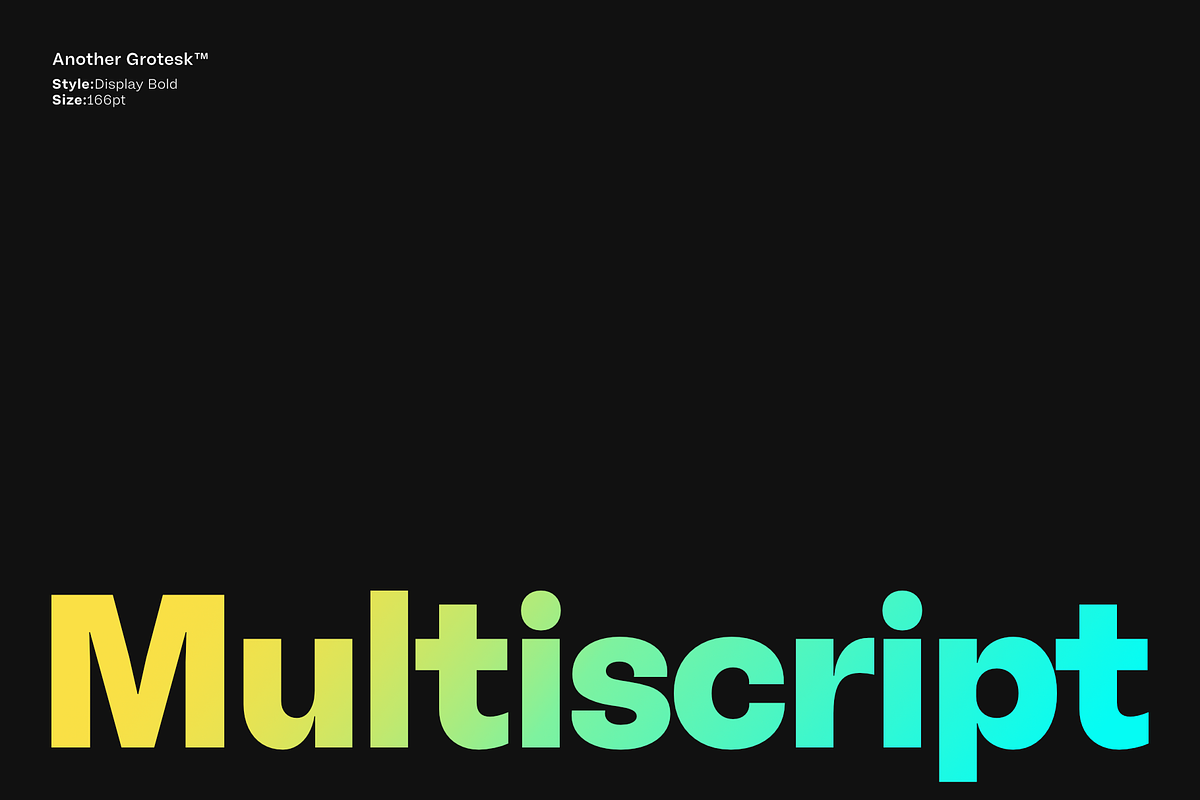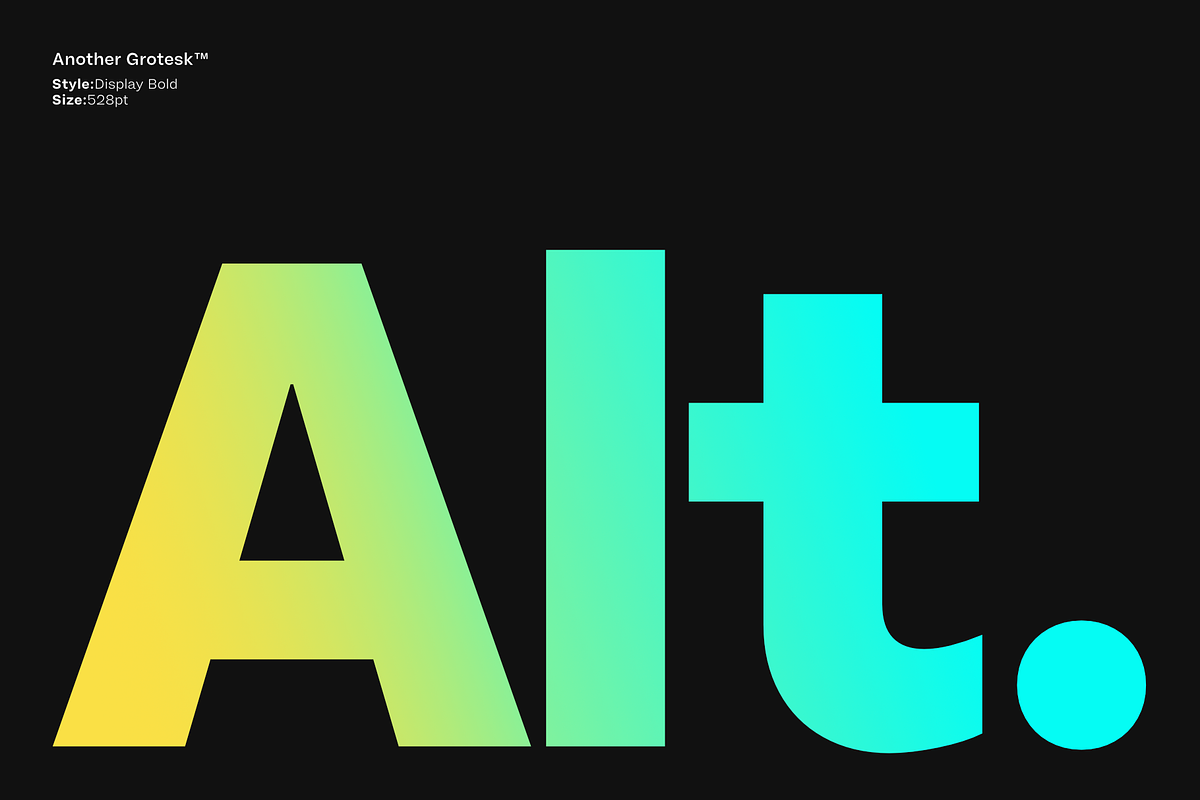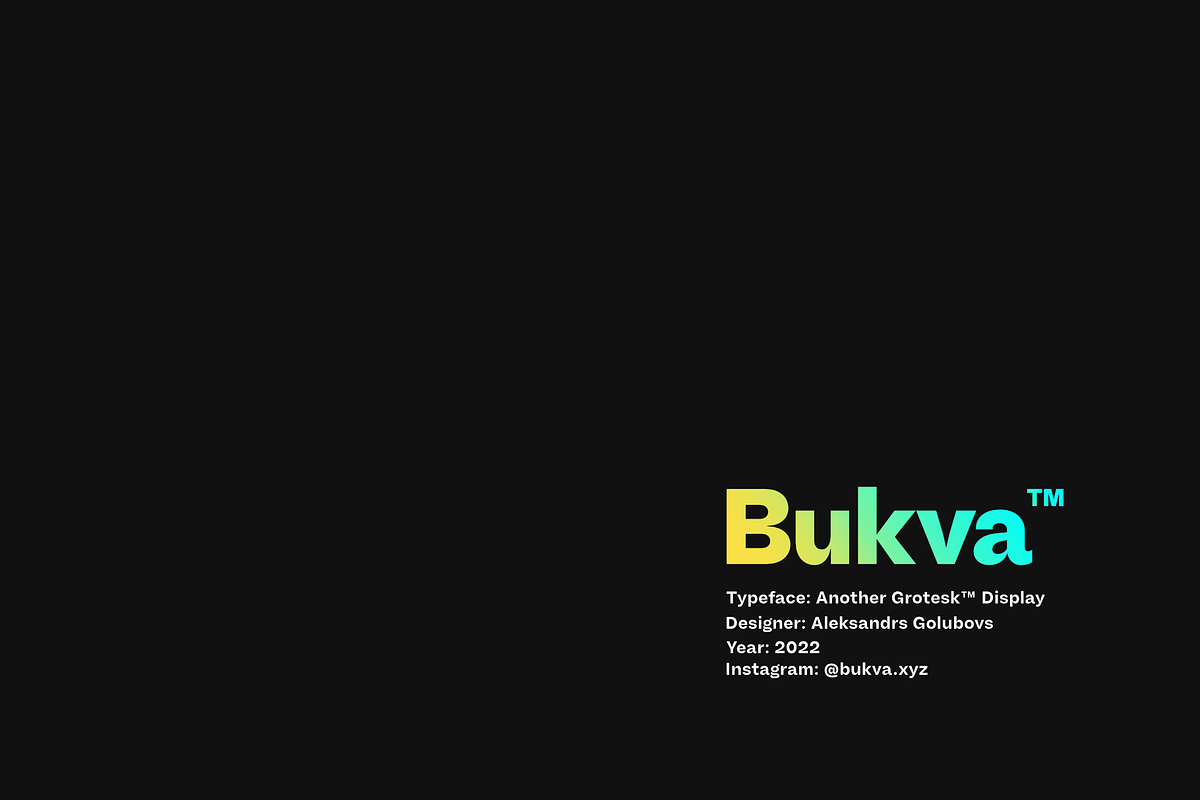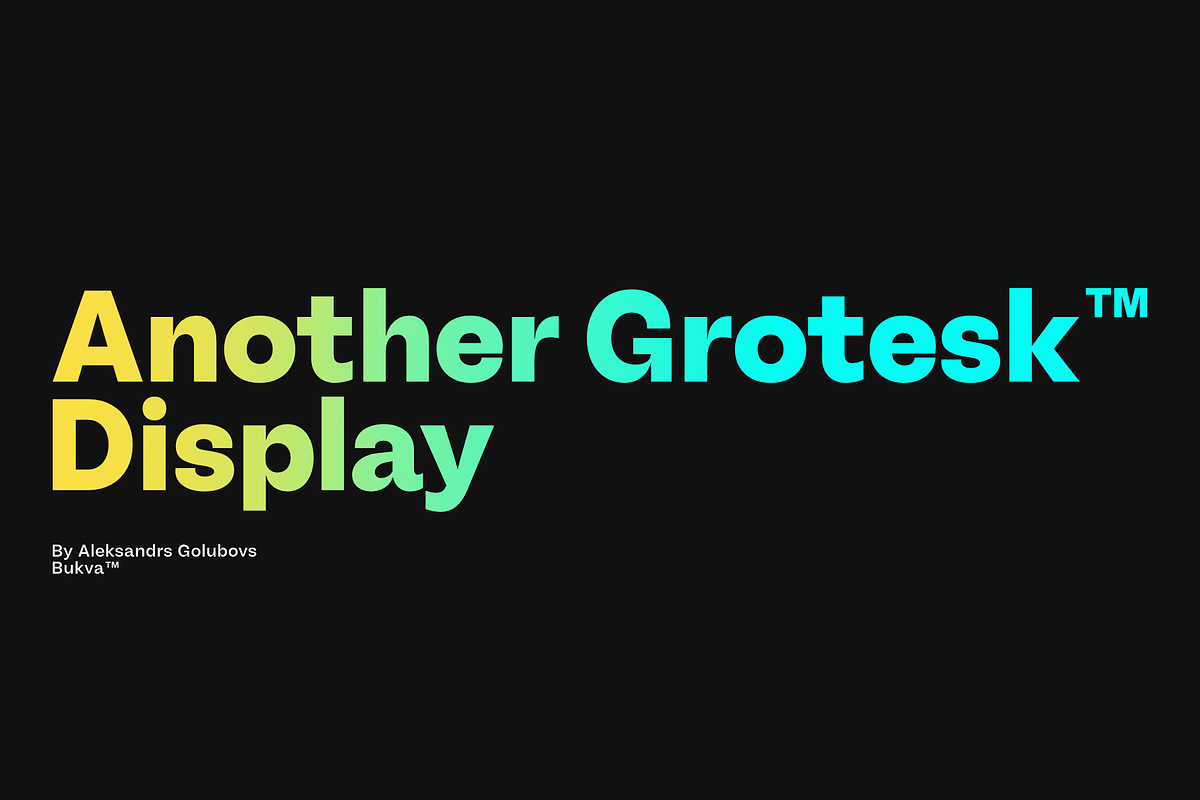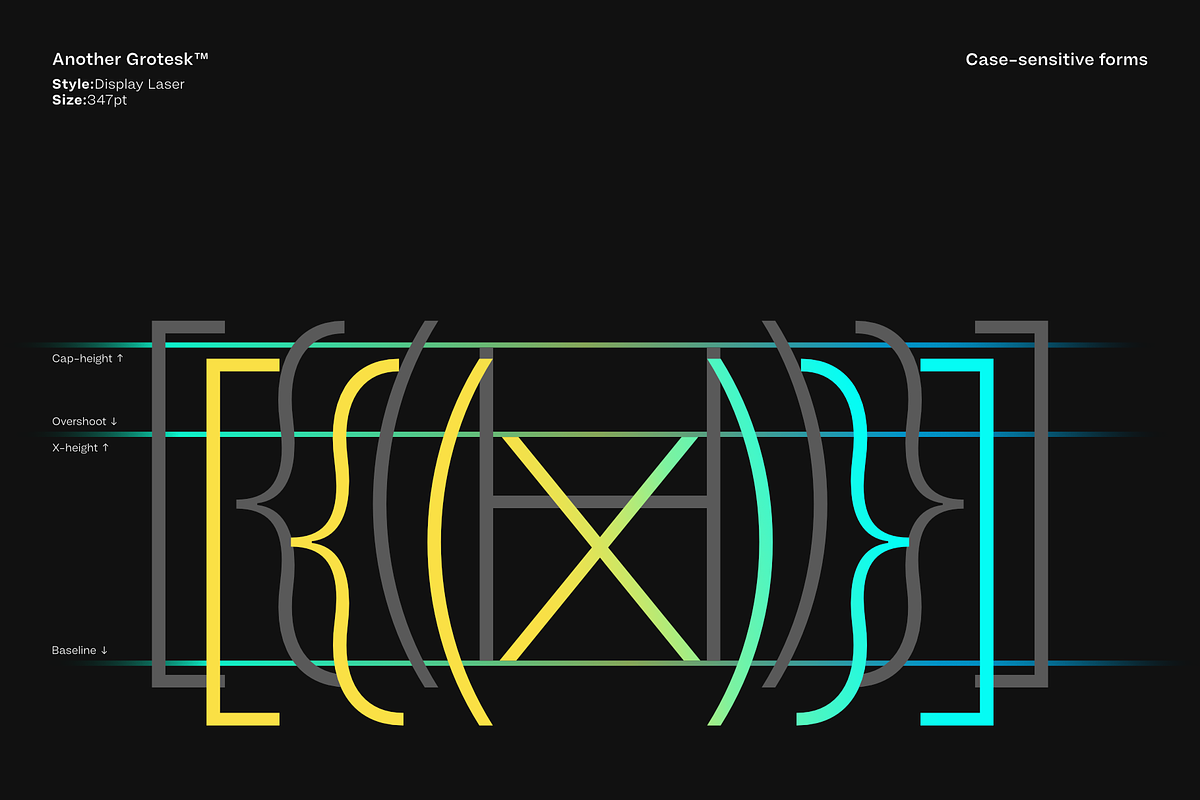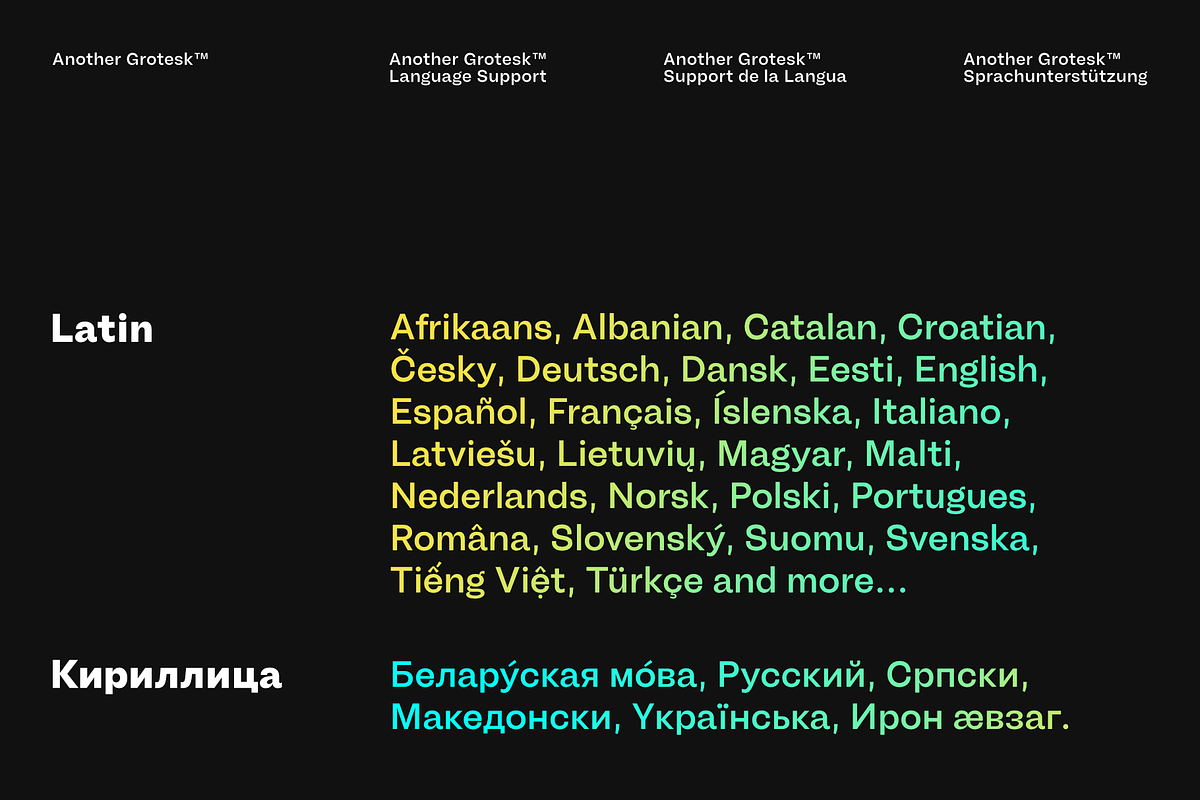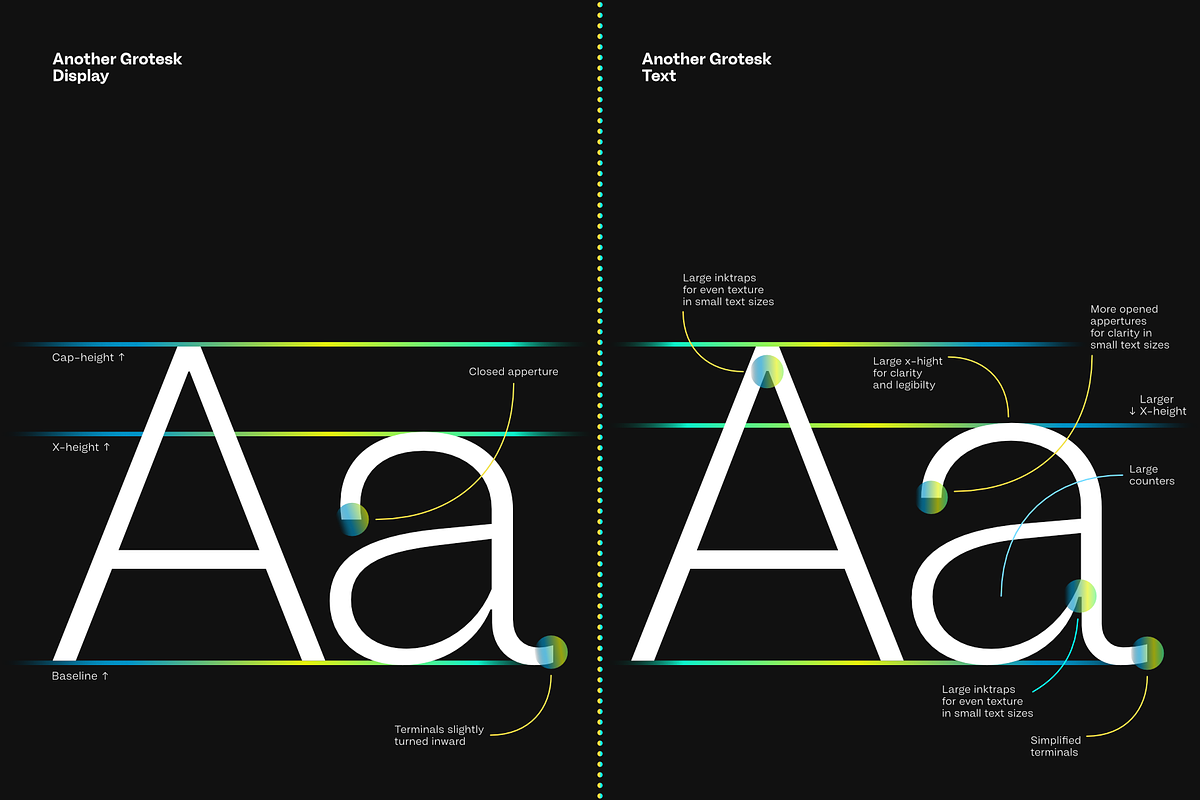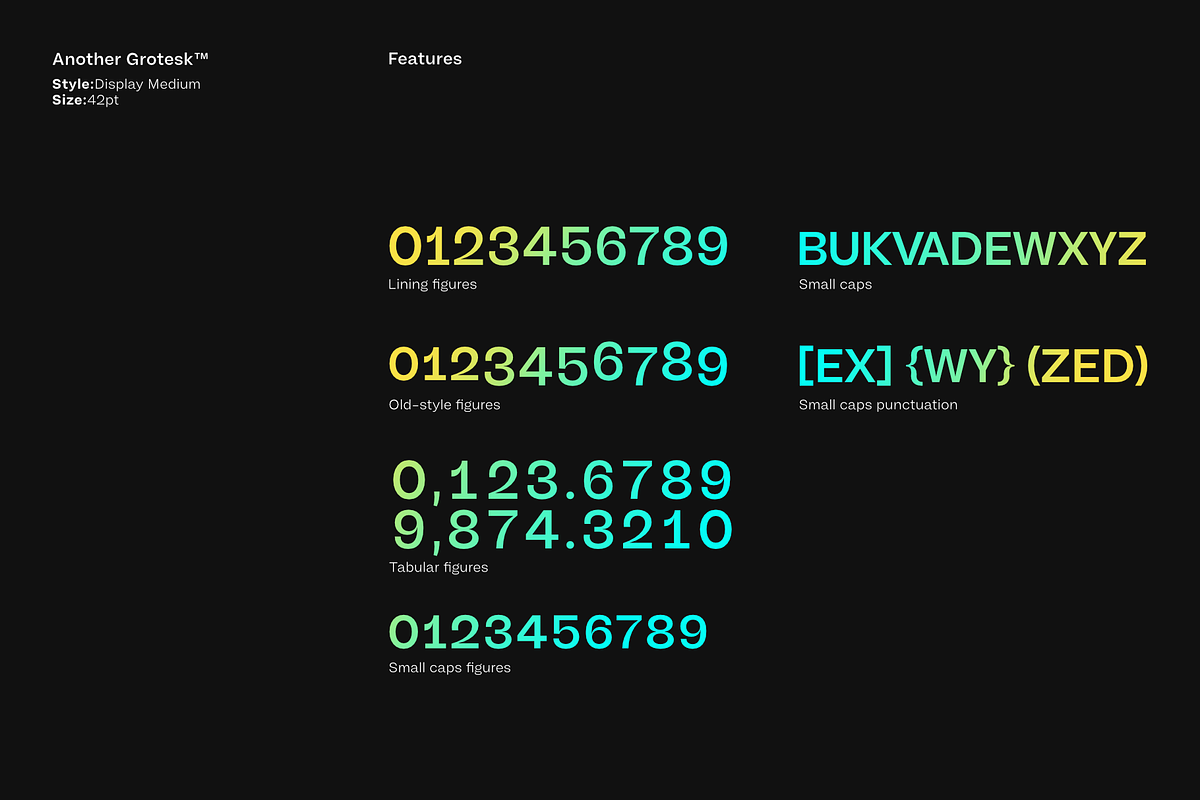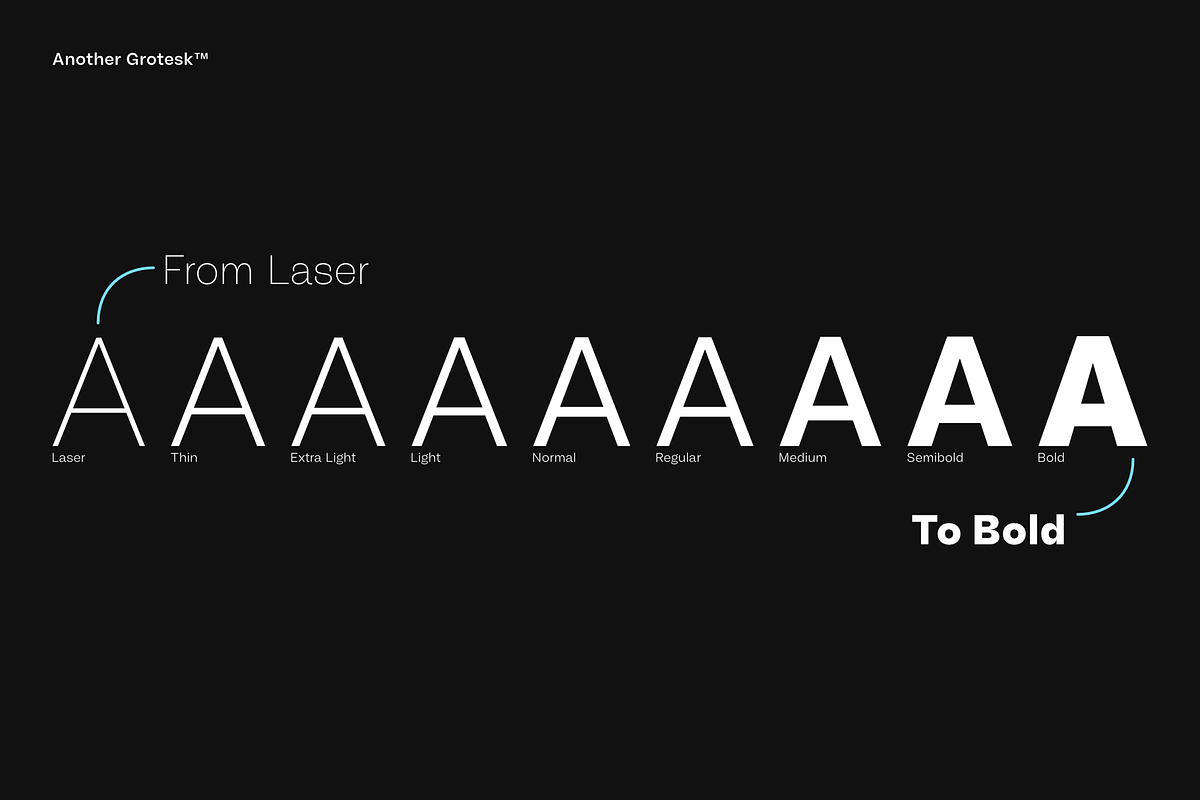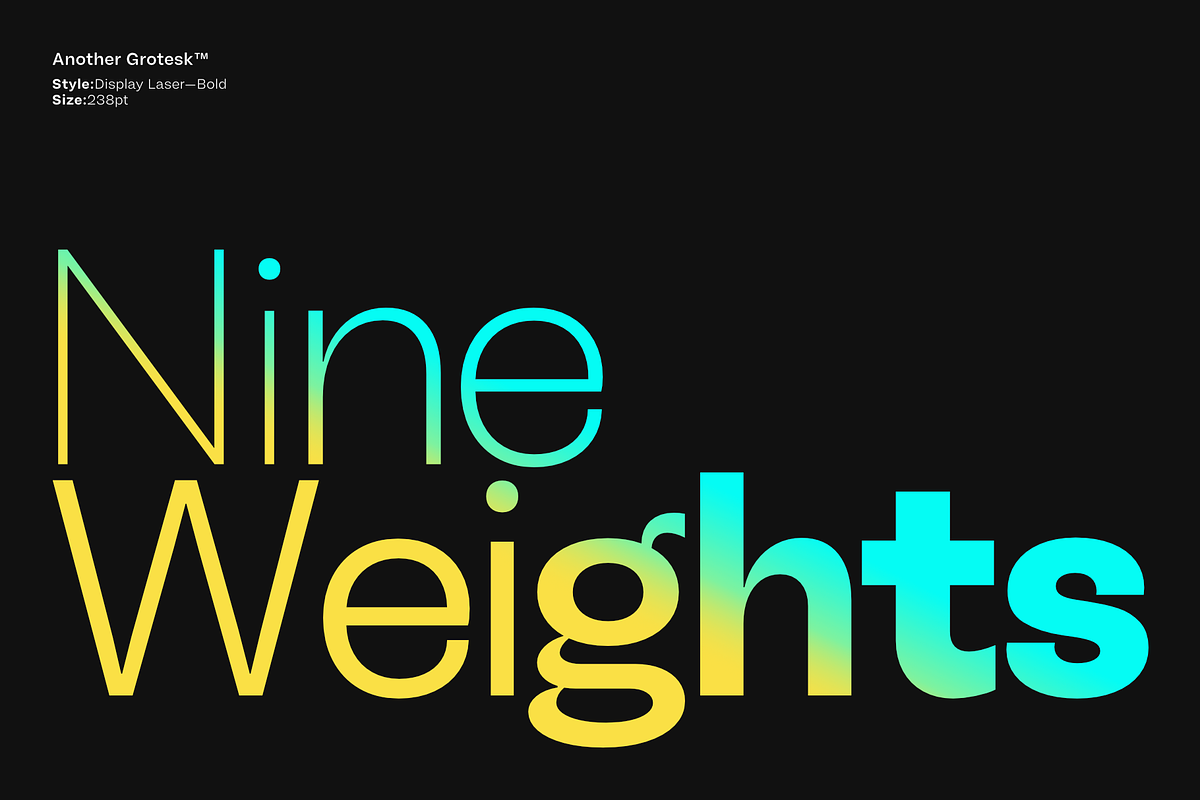
Another Grotesk Display Family
Another Grotesk is a contemporary typeface that was inspired by the early grotesques. Upon closer inspection you will notice the terminals of some of the characters are slightly turned inwards, this detail gives Another Grotesk its distinctive and friendly personality.
Another Grotesk is functional and has been crafted with a great attention to detail. It is available in 9 weights and two optical sizes with matching italics which adds up to 36 styles.
Another Grotesk Text family has been carefully redesigned, some of the details were removed and simplified, x-height increased, and ink traps added, but preserved the overall look and feel of the display version, to ensure a greater legibility and clarity in running text.
The extensive language support allows type setting in more than 200 languages across Latin, Cyrillic and Greek scripts. Another Grotesk also includes small caps and punctuation, tabular and old-style figures, as well as case sensitive feature and offers stylistic alternates for K, a, g, and y to fulfil any creative need of a designer.